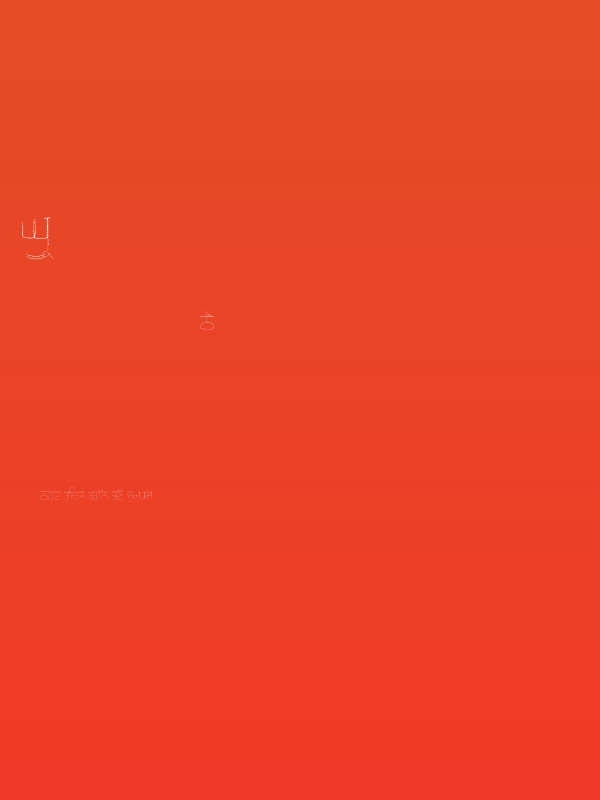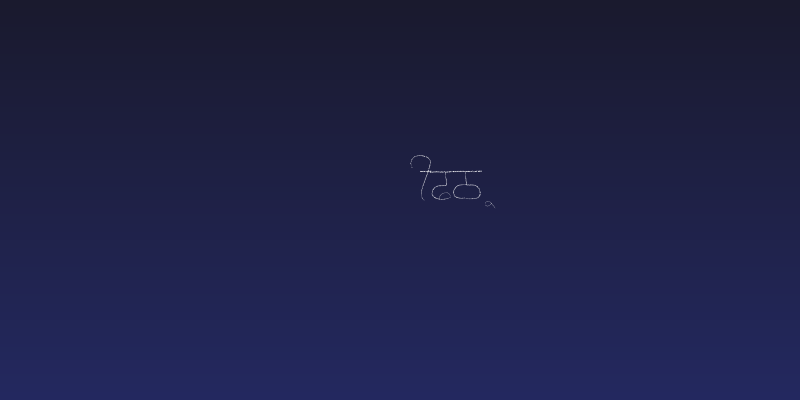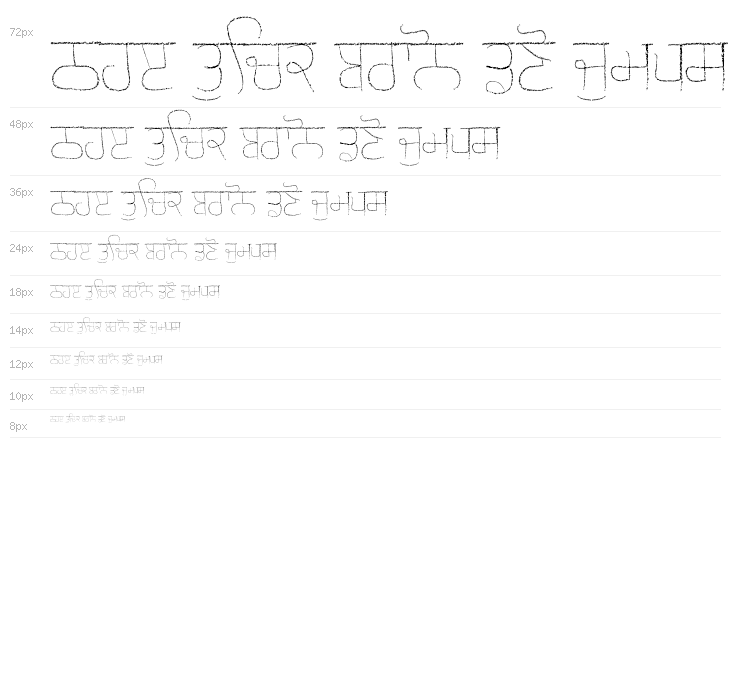
Gurmukhi Chalk script Regular Font
Gurmukhi Chalk script Regular Description
This font features a chalk-like texture that gives it a hand-drawn appearance, reminiscent of writing on a blackboard. The characters are crafted in the Gurmukhi script, showcasing a casual and informal style. The strokes are uneven, mimicking the natural flow of chalk writing, with a slightly rough edge that adds to its authenticity. The font maintains a consistent baseline, while the ascenders and descenders are moderately extended, providing a balanced look. The overall design is playful yet legible, making it suitable for creative and educational purposes.
| Overall Style | Casual, Hand-drawn |
| Use Case | Headlines, Creative projects, Educational materials |
| Proposed Projects | Ideal for educational materials, children's books, creative posters, and informal invitations. |